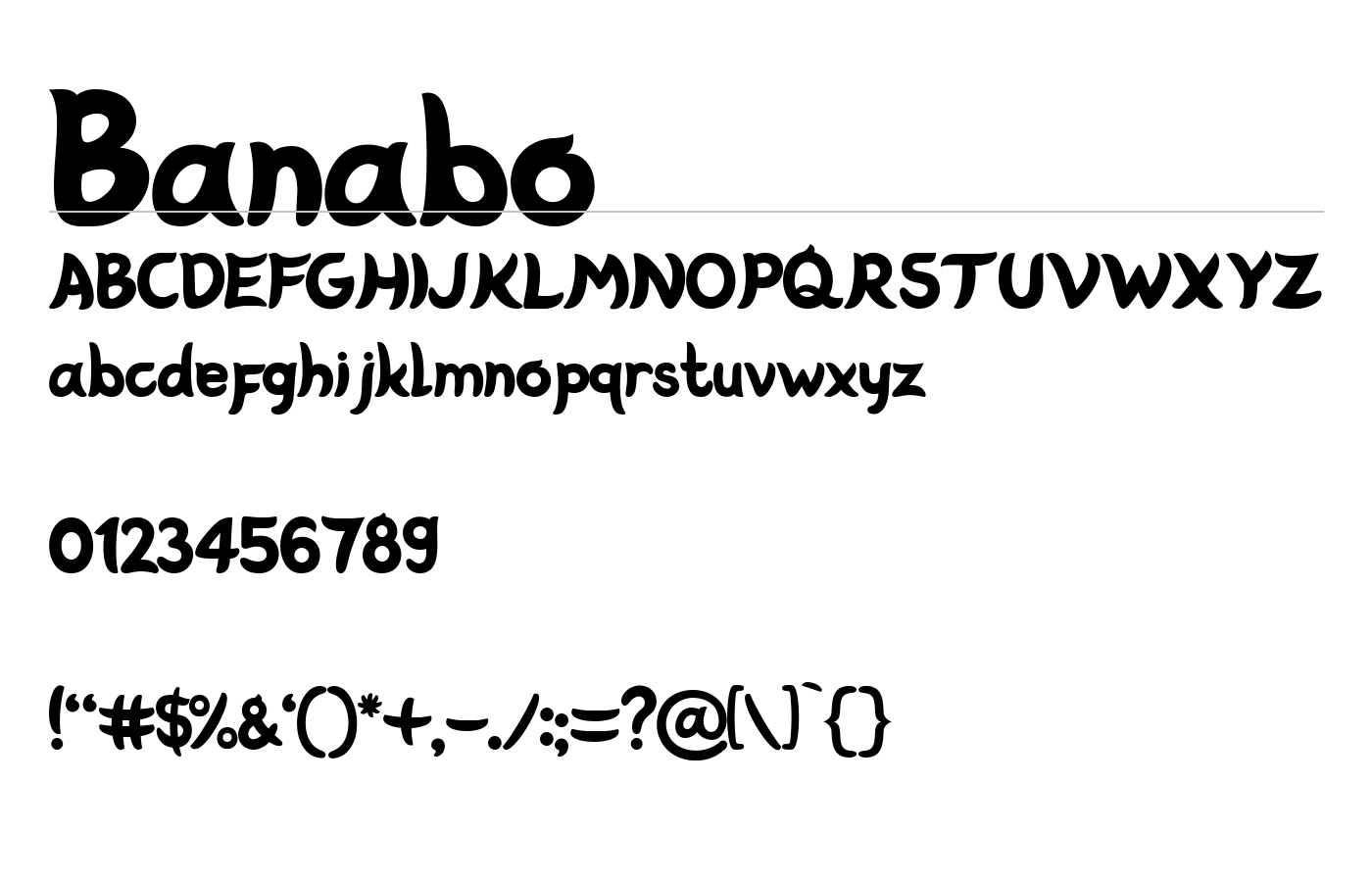
Banabo is a playful and friendly sans serif font with a casual, hand-crafted feel. Its rounded, slightly irregular shapes and bold weight give it a warm and approachable personality, making it ideal for creative projects, children’s materials, and informal branding. This font works well in logos, posters, and headlines where a fun and engaging touch is desired.
Banabo Font
About Banabo Font
| Font family | Banabo Font |
| Designer | Strangertype |